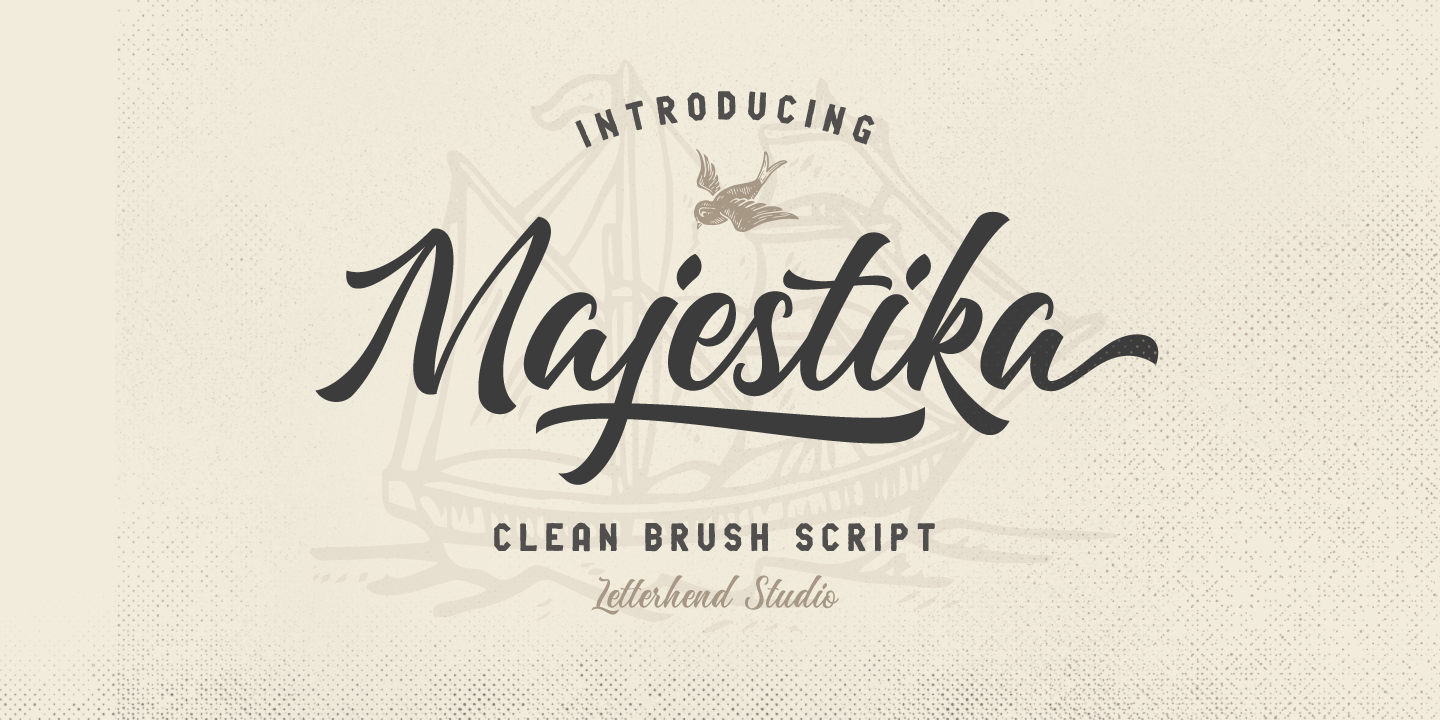
Designed by Hendry Juanda, Majestika is a brush script and hand display font family. This typeface has two styles and was published by Letterhend Studio.
Majestika Script is a beautiful modern calligraphy which is suitable for you who needs a typeface for headline, logotype, apparel, invitation, branding, packaging, advertising etc. This typeface is comes in uppercase, lowercase, punctuations, symbols & numerals, stylistic set alternate, ligatures, etc also support multilingual and already PUA encoded.